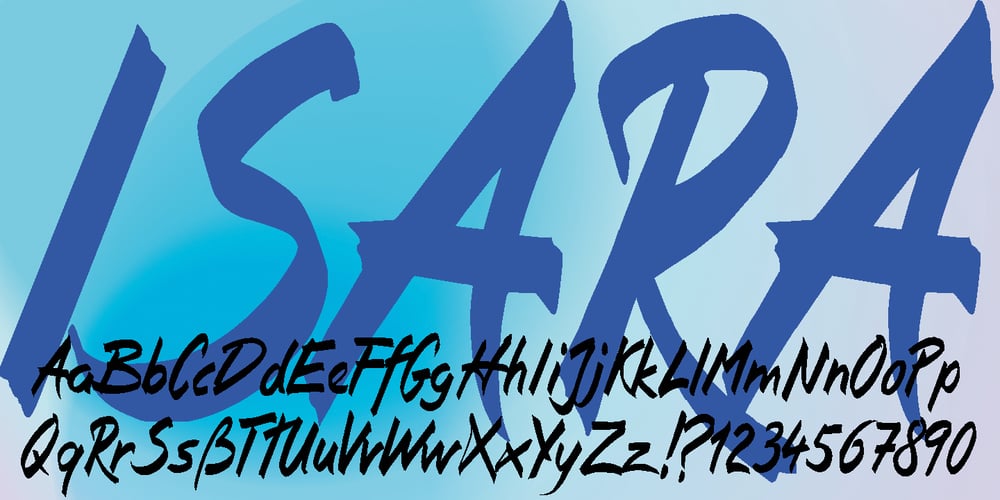
Isara
Isara font
Isara Font Family was designed by Gert Wiescher and published by Autographis. Isara contains 1 styles and family package options. Isara is a rough script written with a flat-nibbed marker, scanned and then carefully digitized to keep that spontaneous feeling.